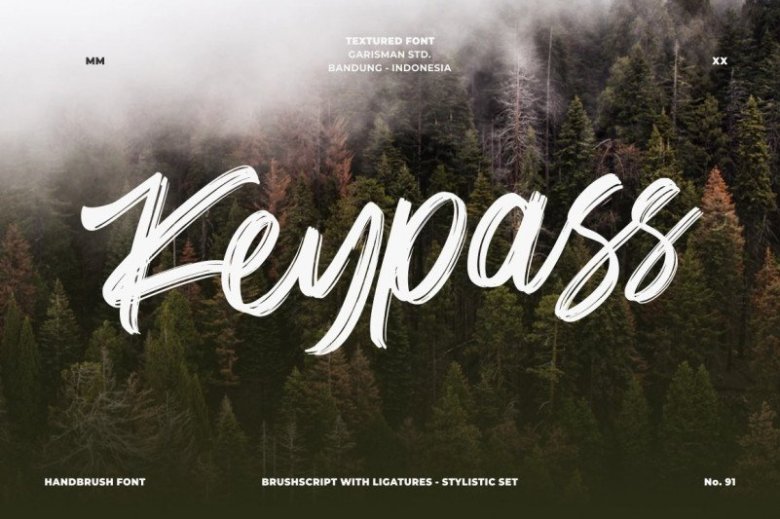
Keypass Brush Font
Hello friend. This is handbrush font, a custom font created from dry brush lettering with tons of alternates. It’s perfect for any stylish your latest project! Introducing Keypass Font.
It’s combines attractive curves with a fresh urban edge; delivering a stylish script which is guaranteed to add an eye-catching appeal to your logo designs, brand imagery, handwritten quotes, product packaging, merchandise & social media posts